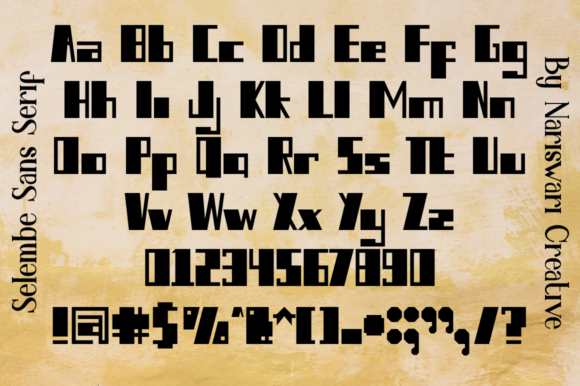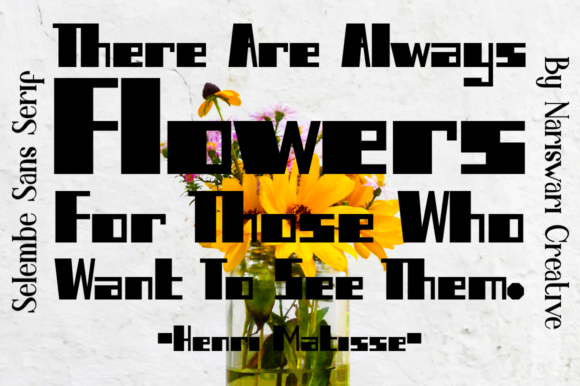
Introduction to Selembe Font
Have you ever found yourself staring at a blank canvas, struggling to bring your creative vision to life? It’s a moment we’ve all experienced, and it’s exactly this moment that makes discovering the perfect font a game-changer. That’s where Selembe Font comes in – a bold and minimalist sans serif font that can elevate your projects to new heights.
As a designer, you know the importance of having the right tools at your disposal. Selembe Font is a valuable addition to any design arsenal, offering a high-quality, free download that’s perfect for any creative project. With its transparent background, you can easily integrate it into your designs without distractions, allowing your message to shine through.
Whether you’re working on a branding project, a website, or a social media campaign, Selembe Font is an excellent choice. Its clean and modern design makes it an ideal choice for designers who want to create visually appealing and professional-looking materials. So why settle for an average font when you can bring your projects to life with the Selembe Font?
Key Features of Selembe Font
- High-quality design with a unique and creative style, making it perfect for various creative projects.
- Comes with a transparent background, allowing for easy customization and integration with other design elements.
- The font is designed to be highly legible, with a clear and crisp resolution of 300 DPI.
- Selembe Font is a versatile design resource that can be used for a wide range of applications, from branding and marketing materials to digital art and graphic design.
- The font size is scalable, allowing designers to use it in various contexts, from small text to large headings.
Honest Review: Selembe Font
I recently stumbled upon the Selembe Font, and I’m excited to share my thoughts on this design resource.
Firstly, I was impressed by the high quality of the font. The details and curves are crisp, making it perfect for any creative project. The transparent background also makes it easy to work with, allowing for seamless integration with any design.
Here are some of my favorite features:
However, I do have some concerns:
- ⚠️ Limited character set
- ⚠️ Not ideal for large-scale text
Overall, I’m impressed with the Selembe Font. It’s a valuable design resource that’s perfect for small-scale creative projects. While it has some limitations, it’s a great addition to any designer’s toolkit.
Tips for Getting the Most Out of Selembe Font
Selembe Font is ideal for use in creative projects, such as logos, infographics, and social media graphics. It’s also suitable for use in presentations and documents, where a unique and eye-catching font is desired.